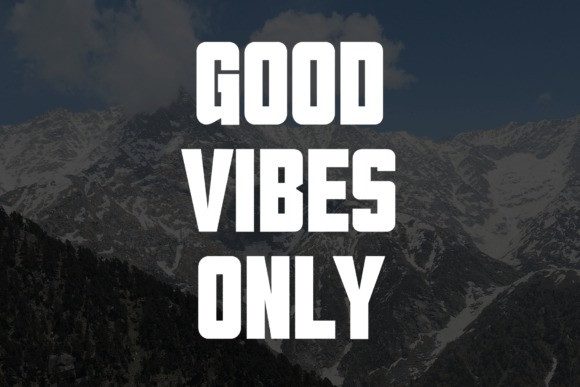
Home Font
Home Font is a bold, condensed sans serif font that emphasizes modern structure and clarity.Its geometric forms and compact style make it ideal for interior design projects, bold branding, magazine layouts, posters, and architecture-inspired graphics. It’s a commanding font that makes a statement with minimal effort.